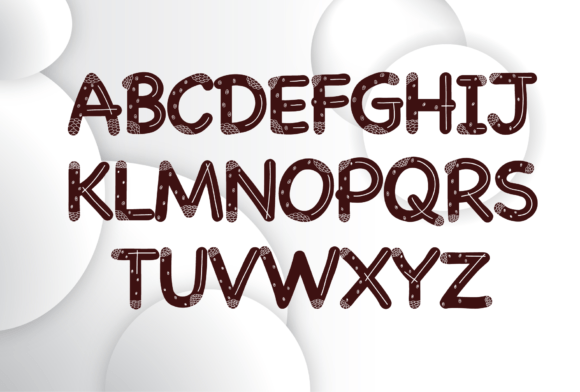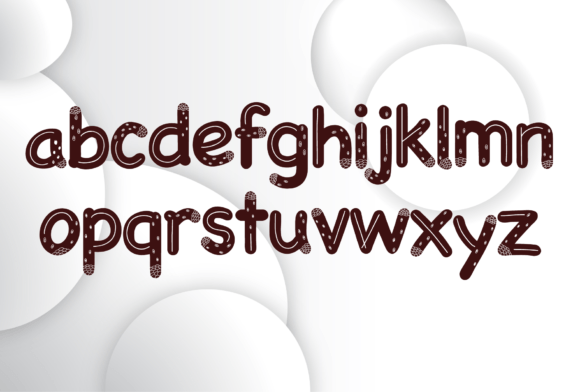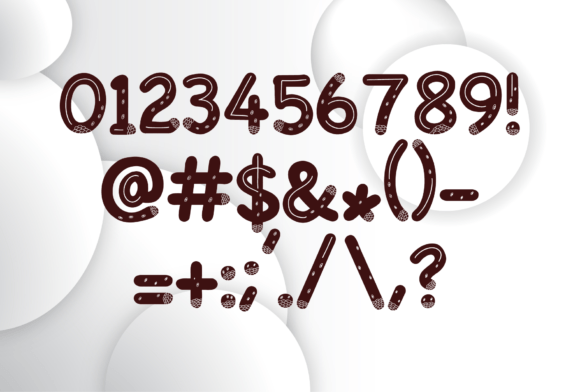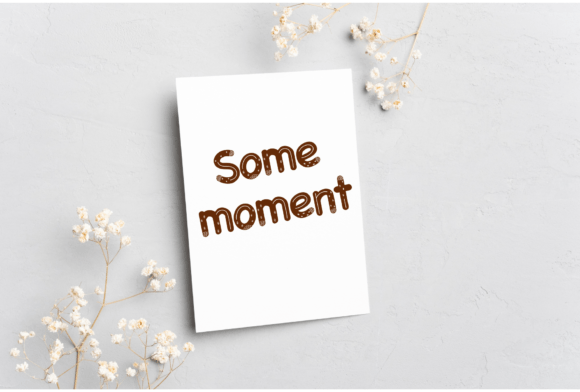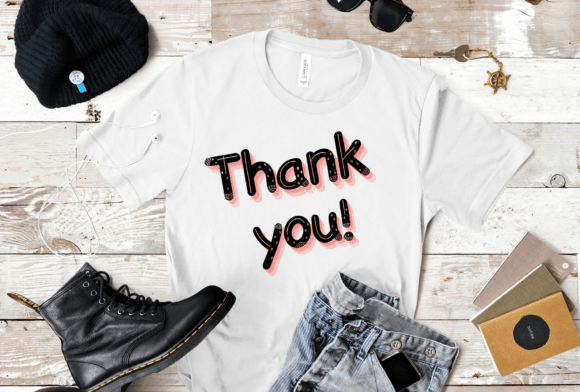
Discover the Perfect Touch of Whimsy with Beautiful Lines Font
Have you ever stared at a blank page, feeling stuck and unsure of how to bring your creative vision to life? We’ve all been there. But sometimes, all it takes is one special font to spark inspiration and set our imagination ablaze. For designers seeking to add a dash of charm and personality to their projects, the Beautiful Lines Font is an absolute game-changer.
This delightful display font is designed to bring a sense of playfulness and whimsy to any design. With its flowing lines and delightful details, the Beautiful Lines Font is the perfect way to add a touch of elegance and sophistication to your next creative endeavor. Whether you’re working on a children’s book, a wedding invitation, or a social media campaign, this font is sure to make a lasting impression.
Key Features of Beautiful Lines Font
- Font Family: Beautiful Lines is a modern sans-serif font, ideal for various design projects.
- Character Count: The font contains over 800 glyphs, including Latin, Cyrillic, and Greek alphabets, as well as various punctuation marks and symbols.
- Unique Characteristics: The font features a unique blend of geometric and organic shapes, creating a visually appealing and modern aesthetic.
Designer Review: Beautiful Lines Font
Overall, I think Beautiful Lines Font is a lovely addition to any designer’s toolkit ✨. The elegant, handwritten feel is perfect for projects that require a touch of sophistication and whimsy. The font’s versatility shines through in its ability to work well in both digital and print formats.
Here are some specific things that I love about Beautiful Lines Font:
- Beautiful texture and subtle imperfections that give the font a unique, handmade feel ✨
- Wide range of language support, making it a great choice for international projects
- Extensive character set, including ligatures and swashes, for added visual interest
- ⚠️ Limited font sizes: Beautiful Lines Font may become too ornate and difficult to read at very large font sizes
- ⚠️ Not ideal for projects requiring extreme precision or uniformity, as the font’s handmade feel can be inconsistent
Overall, I would highly recommend Beautiful Lines Font for designers looking to add a touch of elegance and whimsy to their projects. With its versatility and unique feel, it’s a great choice for a wide range of applications.
Tips for Getting the Most Out of Beautiful Lines Font
To get the most out of Beautiful Lines Font, consider the following tips:
Use it for titles and headings to add a touch of elegance.
Combine it with bold or italic text to create contrast and visual interest.
Experiment with different font sizes and colors to enhance the overall design.
Common Use Cases for Beautiful Lines Font
Beautiful Lines Font is perfect for:
Business cards and marketing materials.
Book covers and magazine layouts.
Any design project that requires a touch of sophistication and elegance.